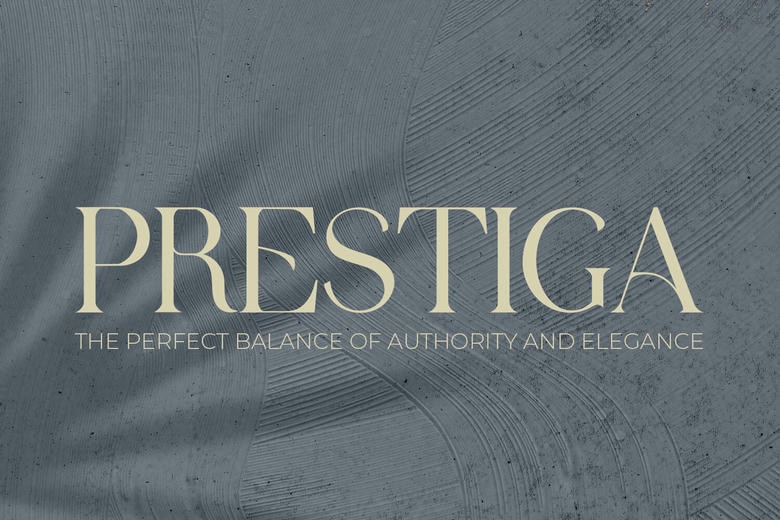
Prestiga Font
Prestiga is an elite and high-contrast serif face designed with the utmost care to represent the spirit of architectural precision and “quiet luxury.” Defined by its fast-paced switch from razor-thin hairlines and authoritative stems, this font has a sense of rhythmic elegance that is looped in timelessness and of the present.
Inspired by the golden age of bespoke typography, Prestiga has refined ball terminals and sharp, bracketed serifs that give any project an instant aura of prestige. Its balanced proportions and sophisticated “Old Money” aesthetic make it the ultimate tool for designers seeking to bring their work to the very highest level of professional luxury.
Prestiga Serif Font